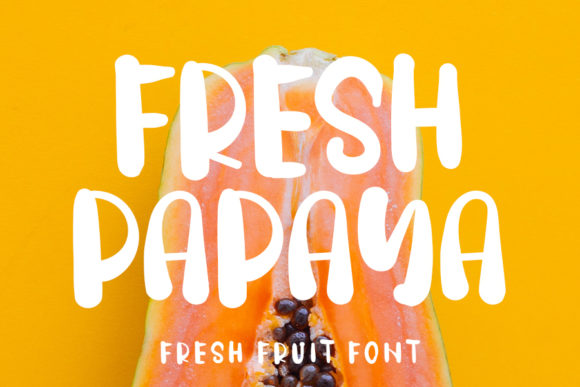
In the realm of visual communication, fonts reign supreme as the silent storytellers that evoke emotions, convey messages, and leave a lasting impression. Amidst the myriad of digital options, Fresh Papaya Font stands out as a radiant gem, a true masterpiece crafted for those seeking to make a bold statement.
Picture this: a vibrant, hand-painted masterpiece that dances across your screen, captivating your audience with its effortless charm and undeniable allure. Fresh Papaya Font is not merely a typeface but an artistic expression that breathes life into your words, transforming them into captivating narratives.
Unleash your creativity and let Fresh Papaya Font ignite your imagination. Whether you're a seasoned designer or embarking on your typographic journey, this display font will empower you to craft visuals that resonate with your audience. Its versatility knows no bounds, seamlessly adapting to a symphony of creative endeavors, from captivating social media posts to eye-catching logos and stunning website designs.
Dive into the world of brushstrokes and let Fresh Papaya Font guide your artistic vision. Its playful and energetic style will add a touch of whimsy to your creations, while its unwavering legibility ensures that your message shines through with crystal clarity.
So, why settle for ordinary when you can elevate your designs with Fresh Papaya Font? Its playful spirit and boundless potential will empower you to create unforgettable visuals that stand the test of time. Join the ranks of creative pioneers who have harnessed the power of Fresh Papaya Font to captivate, inspire, and leave an indelible mark on the digital landscape.